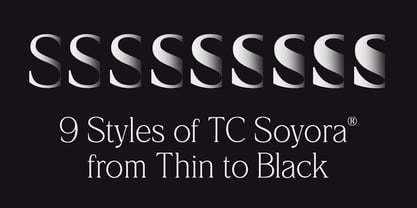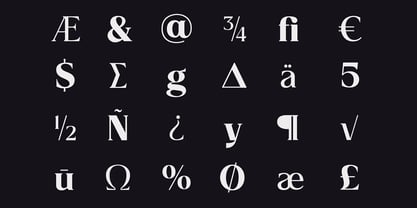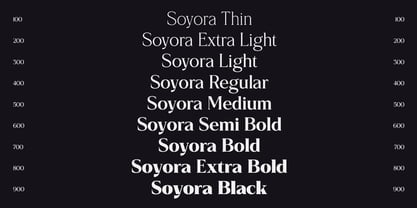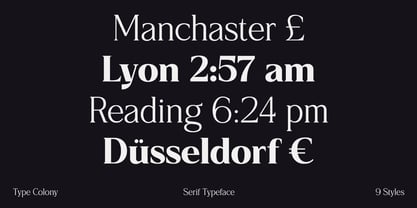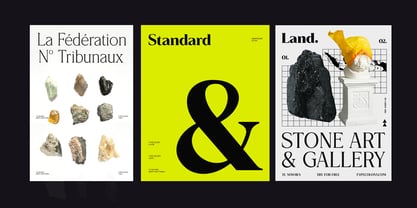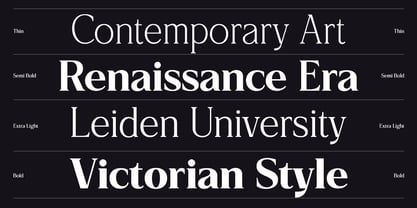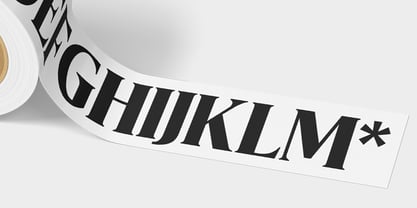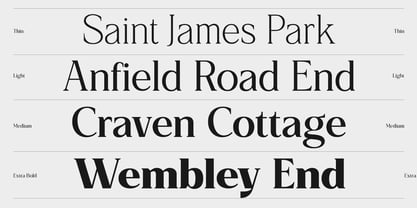
Soyora
by Type Colony
The Soyora Font Family was designed by Aliv Pandu, Hasto Nugroho and published by Type Colony. Soyora contains 9 styles and family package options.
Soyora is a contemporary serif typeface that masterfully balances elegance, clarity, and versatility. Rooted in classic serif traditions and enhanced with modern proportions, Soyora exudes a timeless character that is perfect for both editorial and branding applications. The family features 9 meticulously crafted weights, from Thin to Black, empowering designers to create strong typographic hierarchies while ensuring visual consistency across various layouts. With its balanced contrast, clean serifs, and well-defined letterforms, Soyora guarantees excellent readability at both display and text sizes. This typeface is ideal for magazines, books, luxury branding, packaging, logos, and digital interfaces, providing a sophisticated yet approachable tone. Whether utilized subtly in body text or prominently in headlines, Soyora adapts effortlessly to a diverse range of creative needs.
Type Colony is a distinguished type design collective based in Yogyakarta, founded in 2017 by Aliv Pandu. We are dedicated to creating unique and versatile typefaces that cater to designers around the globe. Our studio uniquely blends traditional craftsmanship with contemporary design principles, resulting in fonts that excel in a variety of applications, from branding to editorial use. Each typeface is thoughtfully crafted by our passionate team, ensuring quality and creativity in every design. Our commitment to innovation and excellence sets us apart in the type design industry, making us a trusted choice for professionals seeking distinctive typographic solutions. We serve a diverse range of industries, including editorial, technology, and retail, and our signature style reflects a harmonious balance between aesthetic appeal and functional design, ensuring that our fonts resonate with audiences across various platforms.